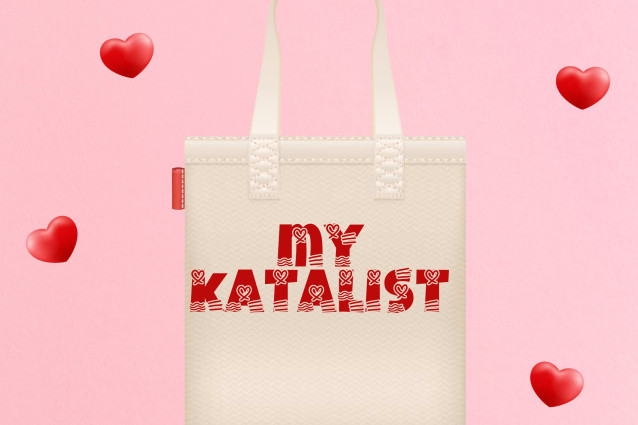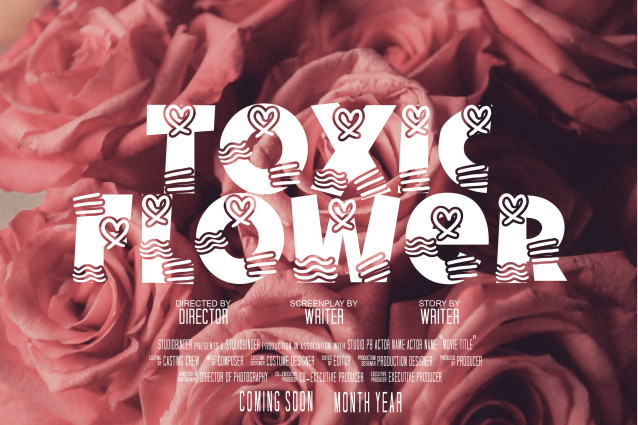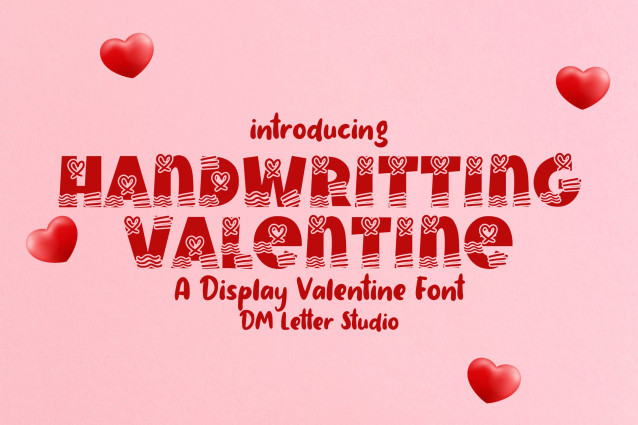
Handwriting Valentine Font
Handwriting Valentine is a lovely, hand-drawn script font designed to capture the warmth and affection of Valentine’s Day. With its soft curves and heartfelt flow, this font adds charm and romance to greeting cards, love notes, wedding materials, digital quotes, and seasonal crafts. Whether you’re expressing love or creating a dreamy design, this font delivers that tender, handwritten touch.